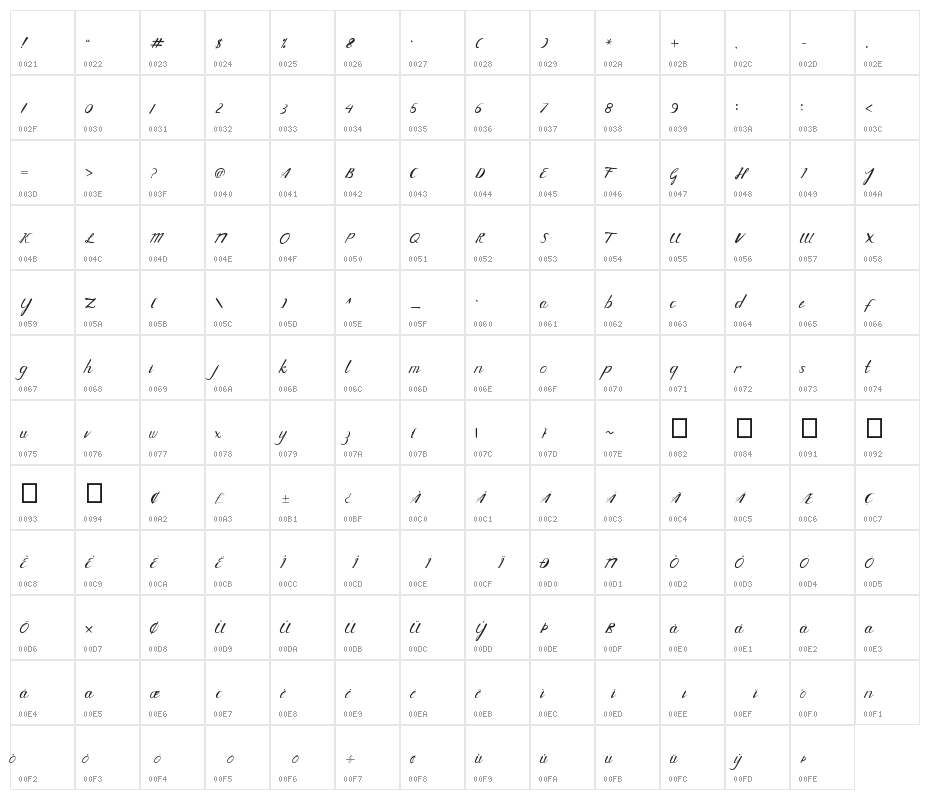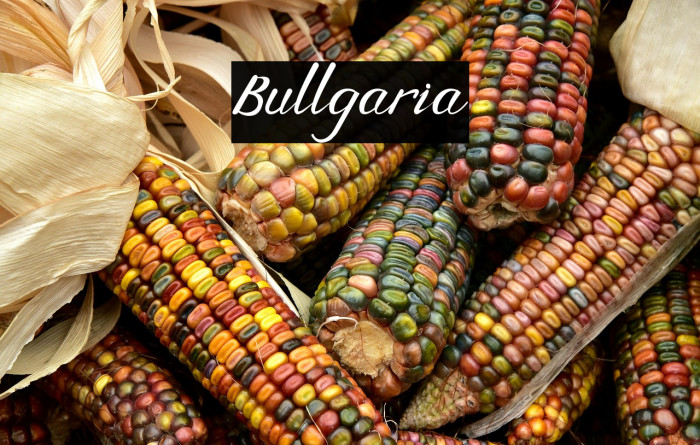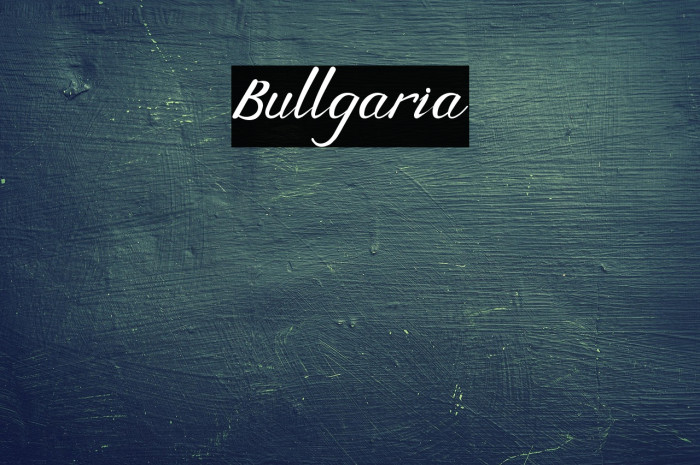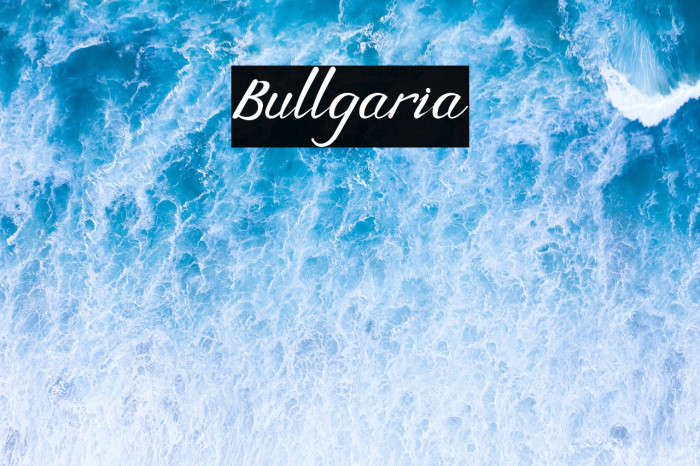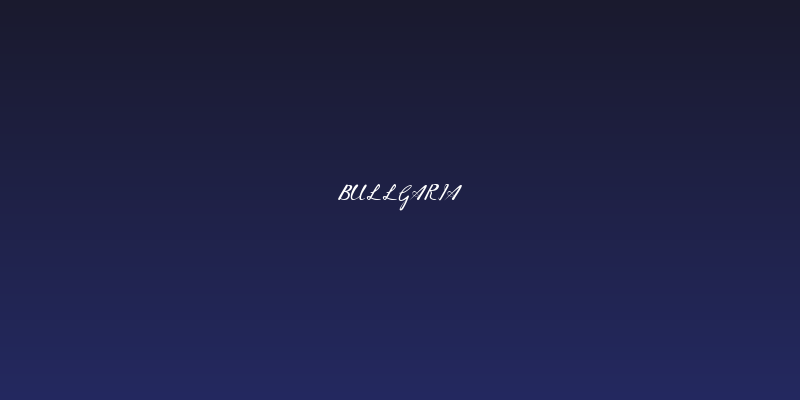
Bullgaria Font
Bullgaria Description
This elegant script font features a flowing, cursive style with a sophisticated flair. The characters are intricately designed with smooth curves and a slight slant, giving it a dynamic and graceful appearance. The uppercase letters are distinguished by their elaborate swashes, while the lowercase letters maintain a consistent fluidity. The numerals and special characters are crafted to match the overall aesthetic, ensuring a cohesive look. This font exudes a sense of refinement and is ideal for projects that require a touch of elegance and class.
| Proposed Projects | Ideal for wedding invitations, elegant branding, luxury product packaging, and formal event materials. |